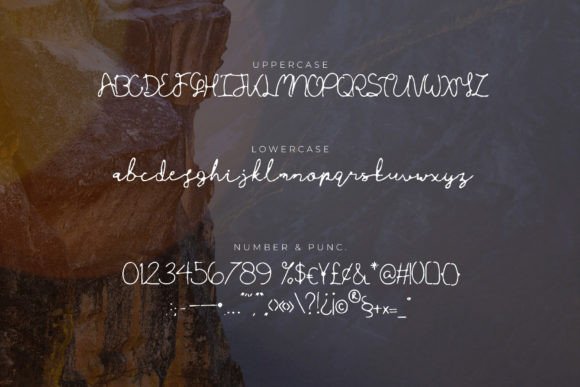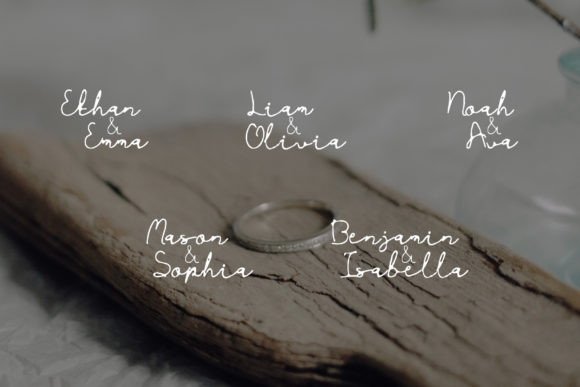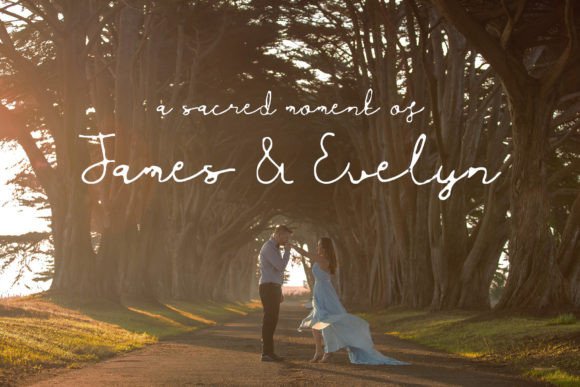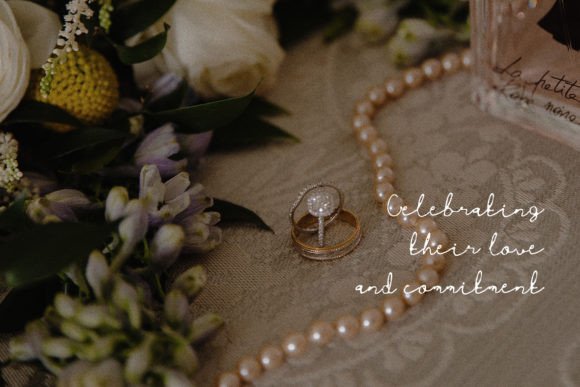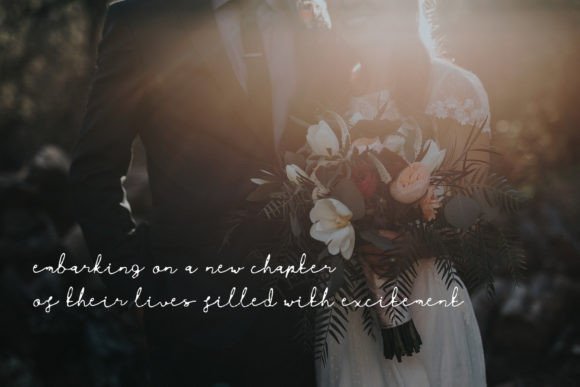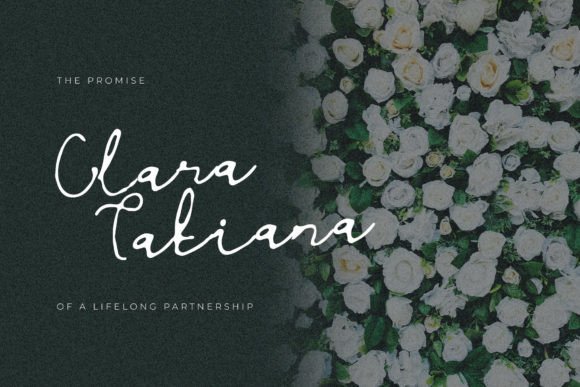
Unlocking the Magic of Aleiya Font
Have you ever found yourself lost in a sea of blank paper, waiting for the perfect spark to ignite your creativity? For many designers, it’s that moment when words start flowing, and ideas begin to take shape. It’s the thrill of bringing a concept to life, and Aleiya Font is here to fuel that spark.
Aleiya Font is a delightful, handwritten typeface that embodies the spirit of playfulness and spontaneity. Its charming letterforms and friendly nature make it a joy to read and work with. Whether you’re designing a children’s book, a social media campaign, or a personal project, Aleiya Font adds a touch of whimsy and personality that’s hard to resist.
For designers, Aleiya Font is a valuable tool that can help bring a unique perspective to your work. Its character variations and playful feel make it perfect for projects that require a touch of creativity and imagination. So why not give Aleiya Font a try and see where it takes you?
Aleiya Font Key Features
- Unique Characteristics: The Aleiya Font features a unique blend of modern and traditional design elements, with intricate details and ornaments that make it stand out from other fonts.
Aleiya Font Review
Aleiya Font is an elegant and sophisticated font that can add a touch of luxury to your designs. ✨ Its refined and delicate look makes it perfect for creating high-end brands, fashion magazines, and luxury product packaging. ✨ The font is highly customizable, allowing you to adjust the weight, style, and spacing to suit your needs.
However, there are some limitations to consider. ⚠️ The font may not be the best choice for body text, as it can be quite dense and may be difficult to read at smaller sizes. ⚠️ Additionally, the font’s high-end look may not be suitable for every project, and it may not be the best choice for casual or informal designs.
Here are some key features to consider:
- Refined and delicate look
- Perfect for high-end brands and luxury products
- Not ideal for body text or casual designs
In conclusion, Aleiya Font is a great choice for designers looking to create high-end and sophisticated designs. While it may have some limitations, its unique look and high level of customization make it a valuable addition to any design toolbox.
Getting the Most Out of Aleiya Font
To get the most out of the Aleiya Font, try combining it with bold or italic styles to add emphasis. Use it sparingly to create a unique and eye-catching design. Experiment with different font sizes and colors to create visual interest.
The Aleiya Font is ideal for creating unique and eye-catching designs, such as:
Alternatives to Aleiya Font
The Great Vibes Font is a beautiful, elegant script font that is perfect for creating a whimsical and romantic atmosphere. It’s ideal for use in invitations, wedding stationery, and other special occasions. Great Vibes Font is more cursive and has a more artistic feel compared to Aleiya Font, which is more minimalist and modern.
The Dancing Script Font is a dynamic and playful script font that is great for adding a touch of personality to your designs. It’s perfect for use in social media graphics, blog posts, and other digital content. Dancing Script Font is more energetic and lively compared to Aleiya Font, which is more understated and sophisticated.